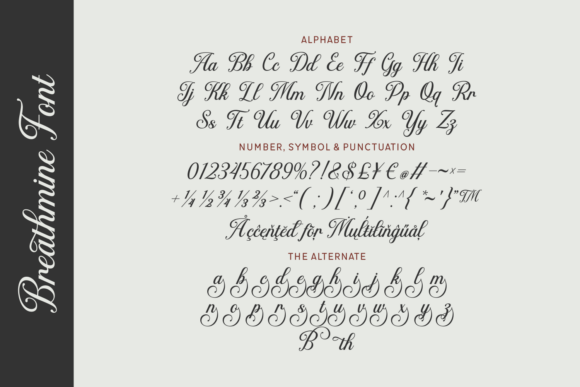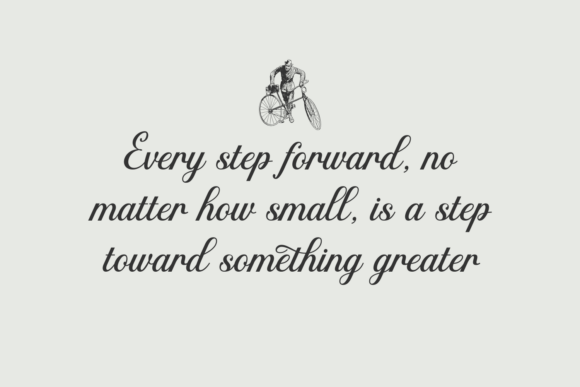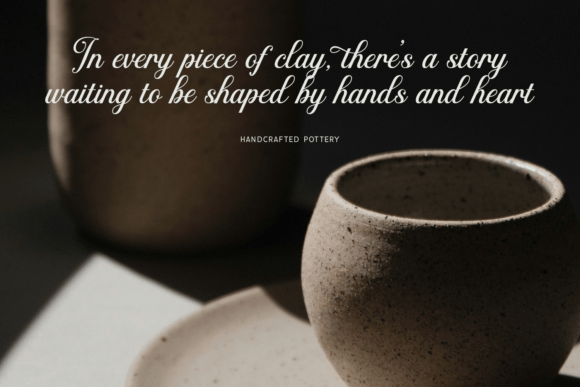
Introducing Breathmine Font: Elevate Your Designs with Luxurious Vintage Flair
In the world of typography, fonts play a crucial role in conveying the tone and personality of a brand. For designers and crafters seeking to add a touch of elegance and sophistication to their work, Breathmine Font is an exceptional choice. This luxurious, vintage-inspired script font is designed to bring a sense of refinement and luxury to premium branding, wine labels, elegant stationery, and more.
The Essence of Breathmine Font
Breathmine Font is characterized by its graceful ligatures and ornamental curves, which evoke a sense of nostalgia and classic charm. The font’s design is meticulously crafted to provide a seamless and luxurious feel, making it perfect for high-end branding projects. Each letterform is carefully shaped to convey a sense of elegance, ensuring that your designs stand out with sophistication.
Key Features of Breathmine Font
- Vintage-Inspired Design: Breathmine Font draws inspiration from classic typography, offering a unique blend of traditional and modern elements.
- Graceful Ligatures: The font features beautiful ligatures that connect letters in a flowing manner, creating a harmonious and elegant look.
- Ornamental Curves: Delicate curves and flourishes add a decorative touch to the font, making it ideal for designs that require a high level of sophistication.
- Luxurious Feel: Breathmine Font is designed to bring a sense of luxury and premium quality to your designs, making it perfect for high-end branding and packaging.
Use Cases for Breathmine Font
Breathmine Font’s versatility makes it suitable for a wide range of design applications. Here are some of the ideal use cases for this elegant font:
- Premium Branding: Elevate your brand’s identity with a sophisticated and luxurious font that conveys high-end quality.
- Wine Labels: Add a touch of elegance to your wine labels with Breathmine Font, perfect for boutique wineries and vineyards.
- Elegant Stationery: Create stunning stationery, including invitations, greeting cards, and letterheads, that exude refinement and class.
- Packaging Design: Use Breathmine Font to add a luxurious touch to product packaging, making your products stand out on store shelves.
Why Choose Breathmine Font?
With Breathmine Font, you gain access to a high-quality, versatile typeface that can elevate your designs to new heights. Here are some compelling reasons to choose Breathmine Font for your next project:
- Unique Design: Breathmine Font offers a distinctive and elegant design that sets it apart from more common fonts.
- High Versatility: The font’s flexibility makes it suitable for a wide range of design applications, from branding to packaging.
- Easy to Use: Breathmine Font is designed to be user-friendly, allowing you to incorporate it seamlessly into your design workflow.
Breathmine Font is a luxurious, vintage-inspired script font that brings a touch of elegance and sophistication to any design project. With its graceful ligatures, ornamental curves, and luxurious feel, it’s the perfect choice for designers and crafters seeking to create premium branding, wine labels, elegant stationery, and more. Elevate your designs with Breathmine Font and discover a new level of typographic excellence.
Whether you’re a seasoned designer or a crafty DIY enthusiast, Breathmine Font is sure to inspire your creativity and help you produce stunning, high-end designs that leave a lasting impression.